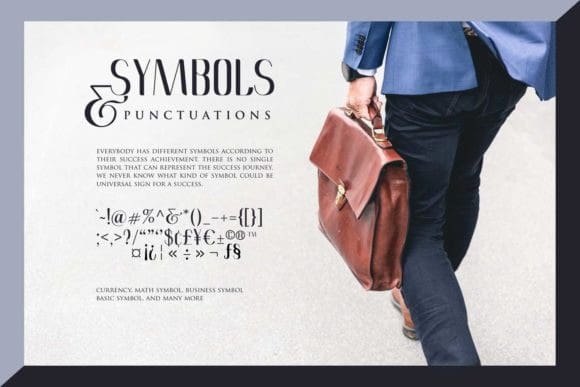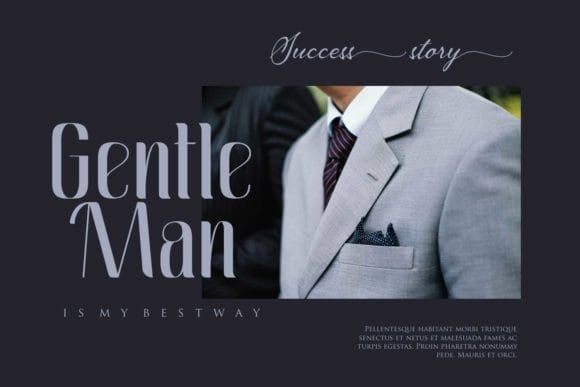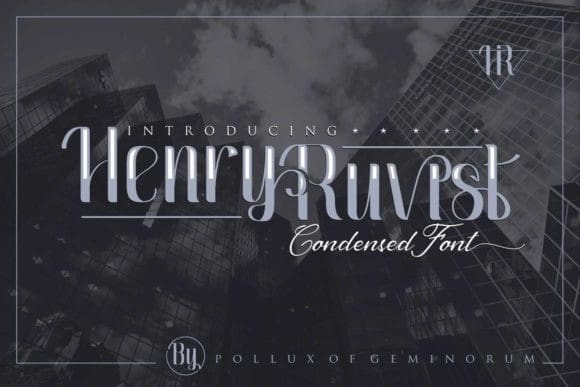
Henry Ruvist Font
Henry Ruvist Font is a condensed font with an elegant touch. It is suitable for any branding project like logos, t-shirt printing, sport designs, and more. It will look outstanding in a wide range of contexts.